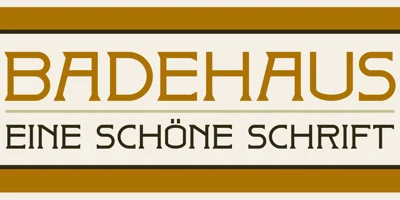
Badehaus Font
Badehaus Font is perfect for luxury spa branding, wellness retreat signage, thermal bath marketing, relaxation center graphics, Germanic wellness traditions, therapeutic wellness campaigns, and sophisticated bathing house designs.
What makes Badehaus Font exciting is its thermal elegance and spa sophistication, featuring refined letterforms that capture the essence of wellness luxury while delivering therapeutic visual appeal and European bathing authenticity.
The Badehaus Font family includes Light, Regular, Medium, Bold, and Heavy weights, plus thermal variants and wellness alternates that enhance the font's relaxing character and spa possibilities.
Badehaus Font embodies the luxurious tradition of European bathing culture and the therapeutic essence of wellness spa experiences through elegant typography design. This sophisticated typeface captures the refined heritage of Germanic wellness traditions and the healing power of thermal spa treatments, creating a therapeutic visual language that speaks to wellness enthusiasts and spa professionals who value European wellness culture, therapeutic relaxation, and the distinguished appeal of traditional bathing house luxury. The font's elegant character and spa appearance make it perfect for luxury wellness centers, thermal spas, and European-style wellness brands that want to communicate refinement, healing, and the sophisticated appeal of traditional spa culture.
Luxury spa companies and wellness retreat centers consistently select Badehaus Font for projects that require authentic wellness credibility and therapeutic visual appeal. The typeface's refined construction and spa personality make it exceptionally effective for thermal bath resorts, wellness retreats, and luxury spa facilities where European wellness traditions and therapeutic healing are paramount. Each character has been designed with spa precision to ensure maximum elegance across all wellness applications and therapeutic environments.
The wellness advantages of Badehaus Font extend beyond its spa appeal to include practical functionality for diverse therapeutic applications. The font maintains excellent readability in tranquil settings while delivering the distinctive character that creates memorable wellness experiences and connects with audiences seeking authentic European spa culture. Its comprehensive character set includes wellness symbols and spa elements that make it particularly suitable for therapeutic documentation and wellness communication.
Thermal spa resorts, luxury wellness centers, and European-style retreat facilities frequently choose Badehaus Font because of its ability to instantly convey spa authenticity and wellness sophistication. The typeface's therapeutic aesthetic helps establish credibility in competitive wellness markets while appealing to guests who value European wellness traditions, thermal healing, and the refined experiences that come from authentic spa culture and traditional bathing house luxury.